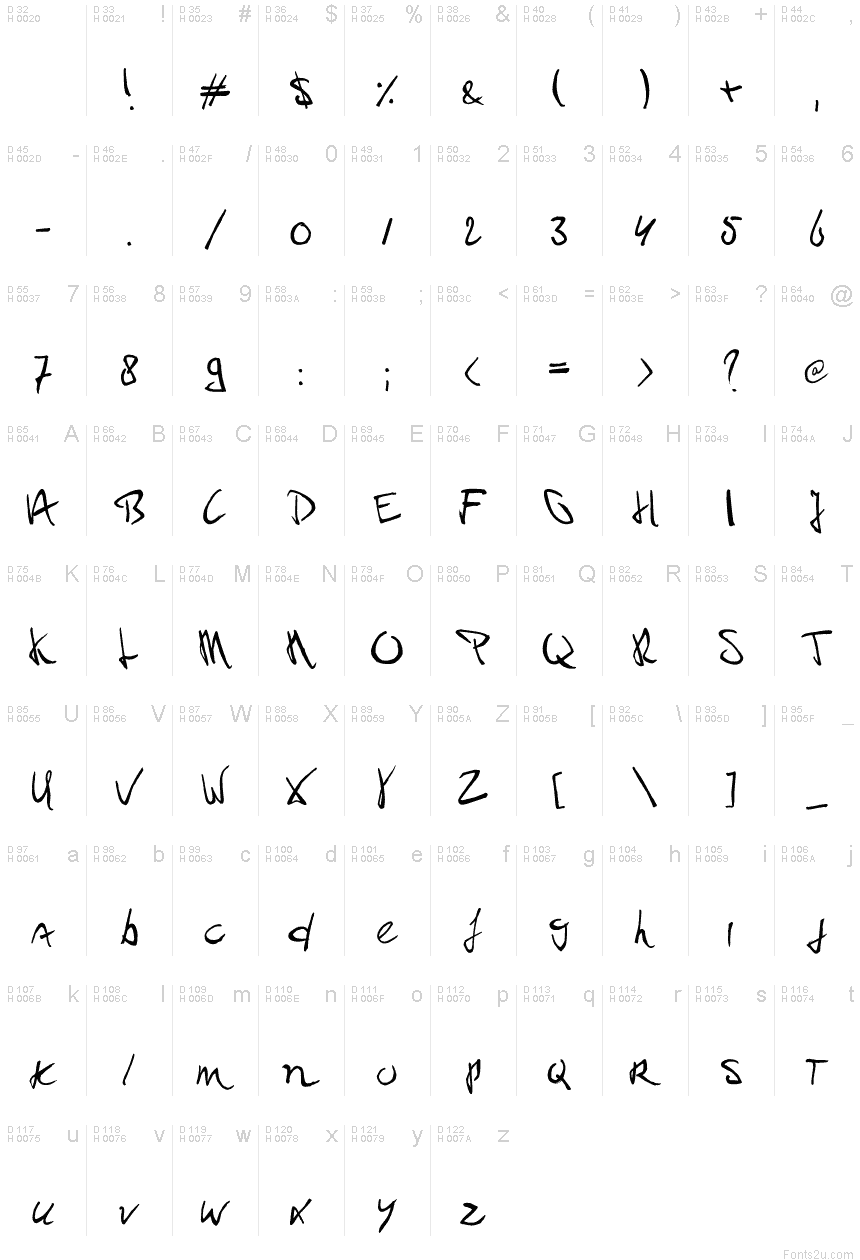
Paul PC
Paul PC font
by Paul & Tom Raaijmakers
2006-2008 Sint Oedenrode
This one is for my dad who died in 2006 in his battle to cancer. Since his death I wanted to copy his handwriting and make it into a font but it's hard since I
don't have all the letters from how he used to write. So some of the letters I copied from his handwriting and I filled in the blanks with how I think he used to write.
Rest in Peace dad...
This one is for my dad, my hero who lost his battle with cancer in 2006. Used some of his handwritten letters. Rest in Peace dad...